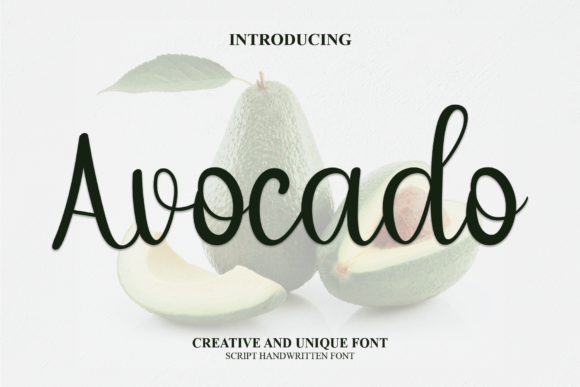
Introducing Avocado Font: The Sweet Handwritten Font for Creative Projects
Are you a designer, crafter, or DIY enthusiast looking for a unique and versatile font to elevate your creative projects? Look no further than Avocado Font, a sweet handwritten font crafted with great care to produce the expected results. In this article, we’ll dive into the world of Avocado Font, exploring its features, uses, and benefits for designers and crafters.
What is Avocado Font?
Avocado Font is a beautiful, handwritten font designed to add a personal touch to your creative projects. With its smooth and flowing lines, this font exudes a sense of warmth and friendliness, making it perfect for a wide range of applications. Whether you’re creating a logo, branding materials, or craft projects, Avocado Font is an excellent choice.
Key Features of Avocado Font
- Handwritten style: Avocado Font boasts a genuine handwritten look, complete with subtle imperfections and variations in line width.
- Versatile: This font can be used for various kinds of products, from digital designs to print materials, and even craft projects.
- Easily readable: Despite its handwritten nature, Avocado Font remains highly legible, making it suitable for body text and headings.
- High-quality: Crafted with great care, Avocado Font is a high-quality font that will elevate your designs and projects.
Uses of Avocado Font
Avocado Font’s versatility makes it an excellent choice for a wide range of creative projects, including:
- Branding and logos: Create a unique and memorable brand identity with Avocado Font.
- Digital designs: Use Avocado Font in social media graphics, blog posts, and website designs to add a personal touch.
- Print materials: Avocado Font is perfect for business cards, brochures, and other print materials.
- Craft projects: Add a touch of personality to your craft projects, such as handmade cards, gift tags, and journal pages.
Benefits of Using Avocado Font
So, why choose Avocado Font for your creative projects? Here are just a few benefits:
- Unique and distinctive: Avocado Font will help your designs and projects stand out from the crowd.
- Time-saving: With Avocado Font, you can create professional-looking designs and projects in no time.
Tips for Using Avocado Font
To get the most out of Avocado Font, here are a few tips:
- Experiment with sizes and colors: Find the perfect combination to match your project’s style and tone.
- Pair with other fonts: Combine Avocado Font with other fonts to create a unique and visually appealing design.
- Use it consistently: Establish a consistent brand identity by using Avocado Font across all your designs and projects.